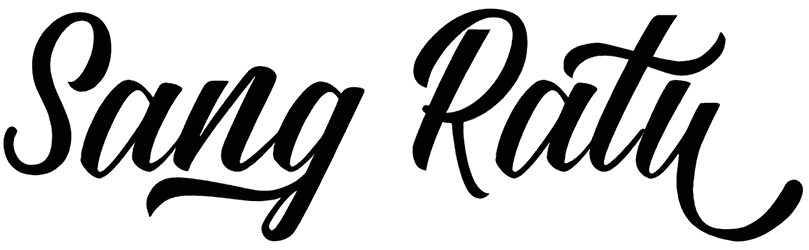
Sang Ratu Font
There is no more effective way to make a text stand out than choosing the right background font. Sang Ratu is one of those fonts that can turn any simple writing into a brilliant work and make it stand out for a long time.
The words written with this script font are not digital and artificial, and can bring you a feeling of being organic with all its shortcomings. For this reason, this handmade font can create a living identity in packaging, tattoos, and printing on clothes.